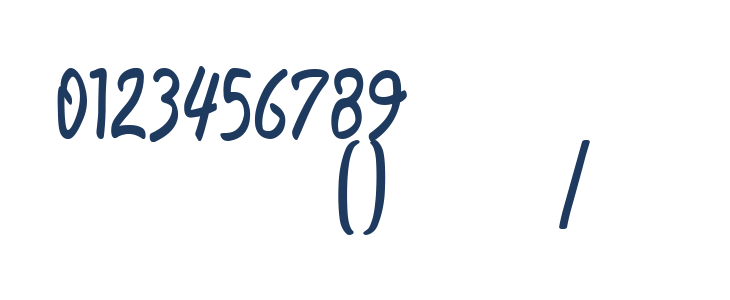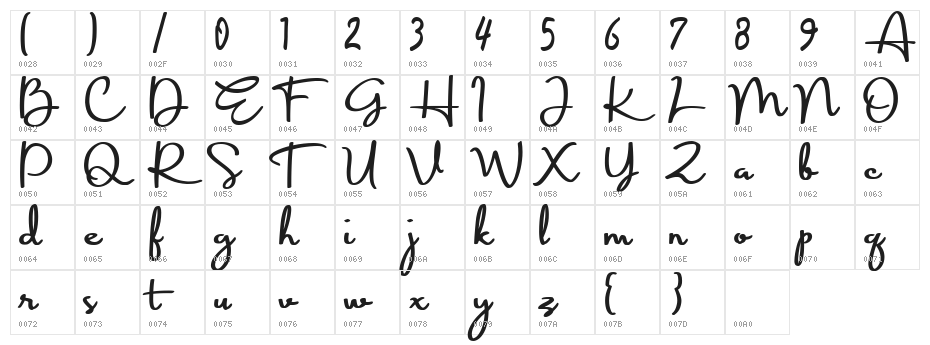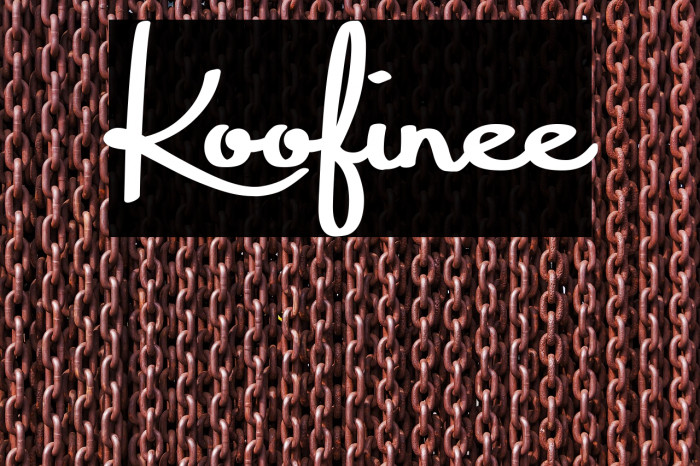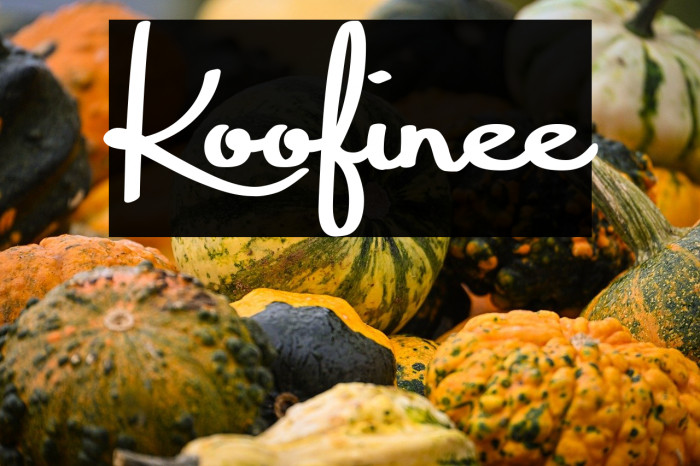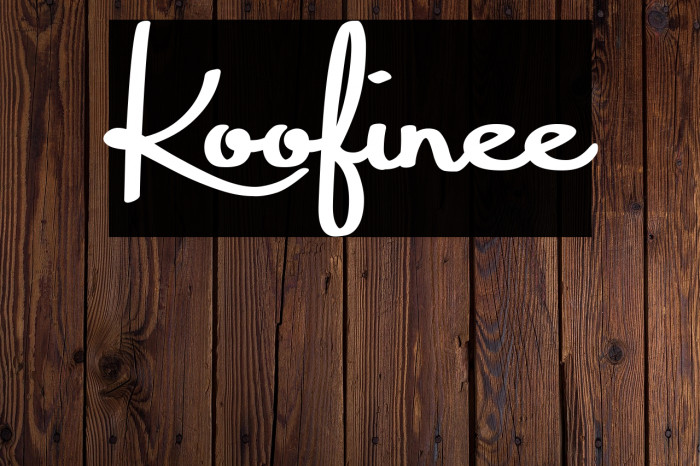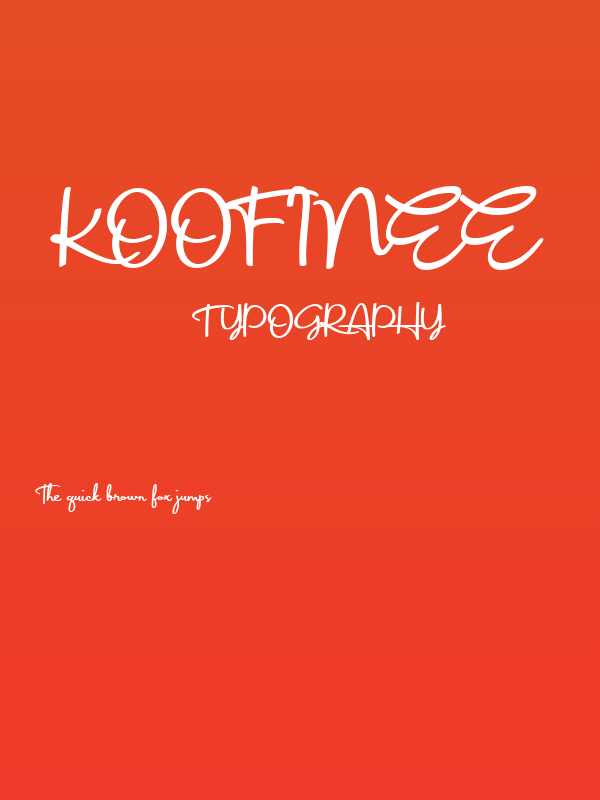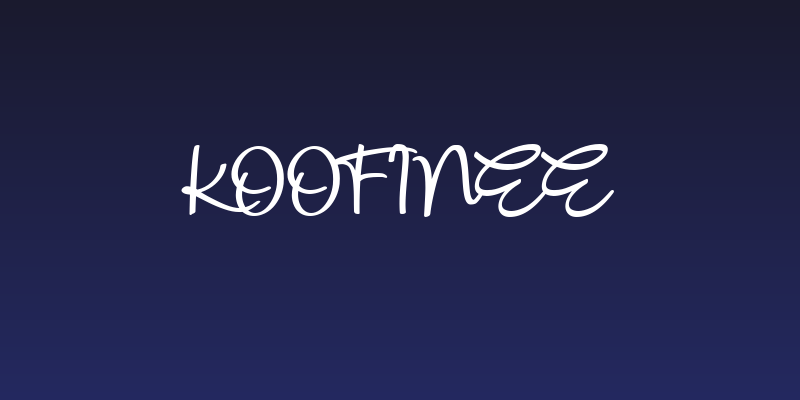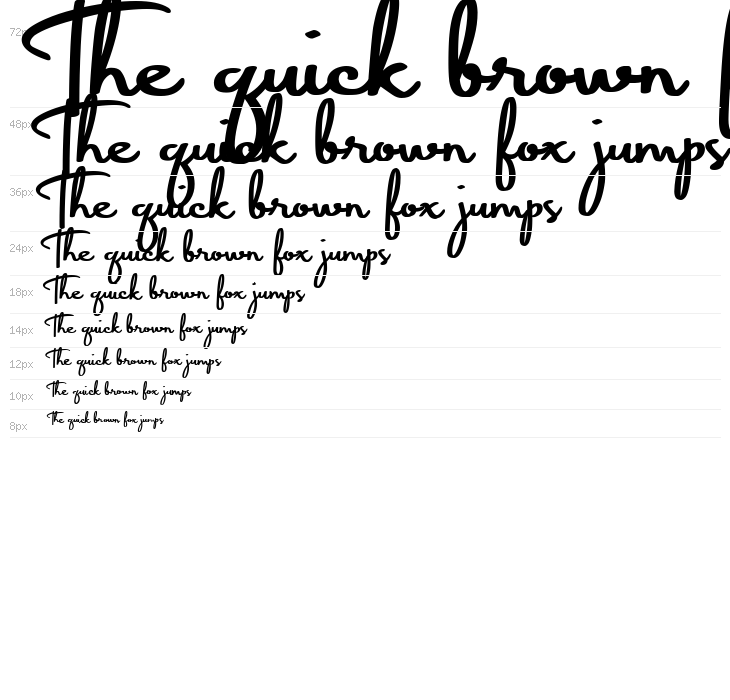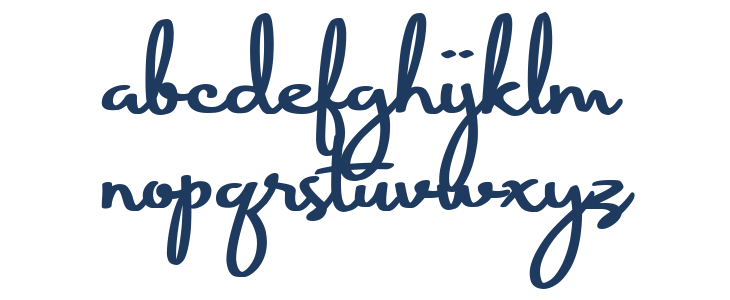
This font features a playful and energetic script style with a handwritten appearance. The characters are connected in a fluid manner, giving it a casual and friendly vibe. The uppercase letters maintain a consistent height, while the lowercase letters exhibit a slight variation in size, adding to the informal charm. The numbers are bold and slightly rounded, complementing the overall style. Special characters are integrated seamlessly, maintaining the cohesive look of the font. The strokes are moderately thick, ensuring readability while preserving the whimsical nature.
| Proposed Projects | Ideal for greeting cards, invitations, personal branding, and creative projects requiring a friendly touch. |